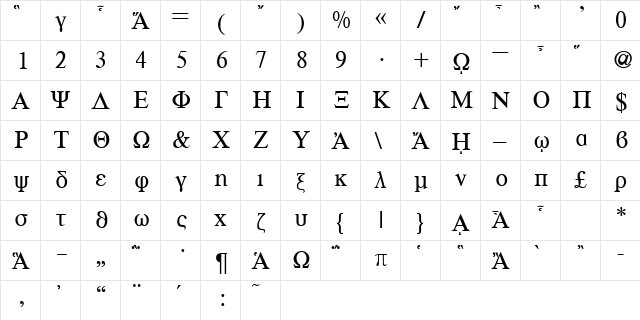
RomanGreek Regular
Design Context for RomanGreek Typeface
RomanGreek offers clean, dependable letterforms without strong stylistic allegiance, making it a practical choice for designers who need flexibility.